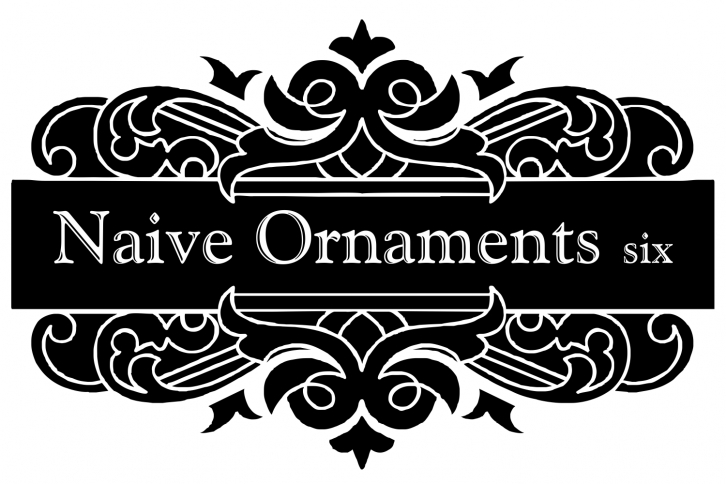
Naive Ornaments Six is a beautiful font that was designed by Intellecta Design. It's a great choice for designers and creatives who need such a font. It was released on July 10, 2018 and the file size is 8.1 MB. Naive Ornaments Six may give a more youthful, expressive and casual look to your project. It is a very beautiful, refined, elegant, and high-quality font.